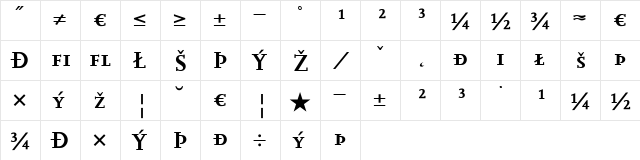
Scala Bold Font Preview
Scala Bold
Scala Bold Font Details
| Foundry | Martin Majoor, . Published by FontShop International. FontFont Release |
Design Context for Scala Typeface
Scala is a composed and adaptable typeface that performs quietly and consistently across a wide range of design contexts. Its bold stroke weight gives it real presence on the page.